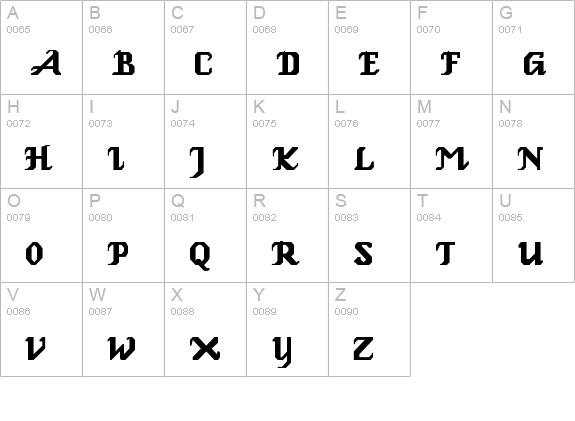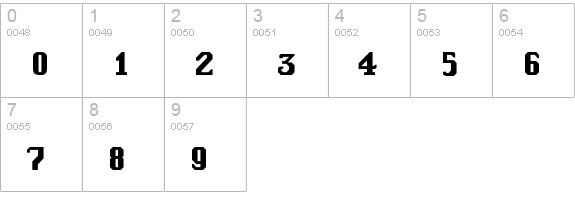
RoboChancerySSK is an elegant and modern font that combines the sleekness of technology with the sophistication of traditional calligraphy. Its clean lines and distinct curves make it perfect for adding a touch of class to any design project. The font exudes a sense of professionalism and luxury, making it suitable for a wide range of applications, from branding to invitations to signage. What's even better is that RoboChancerySSK is available for free download at FontsMarket.com. This means you can easily access this stylish and versatile font to elevate your creative projects without breaking the bank. Don't miss out on the opportunity to add RoboChancerySSK to your font collection and take your designs to the next level.